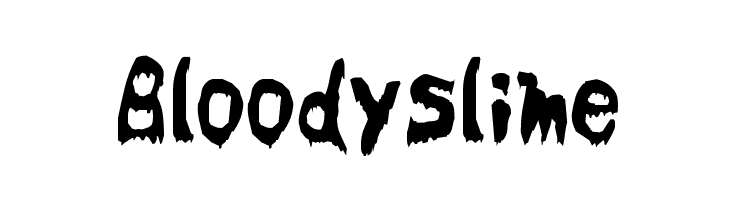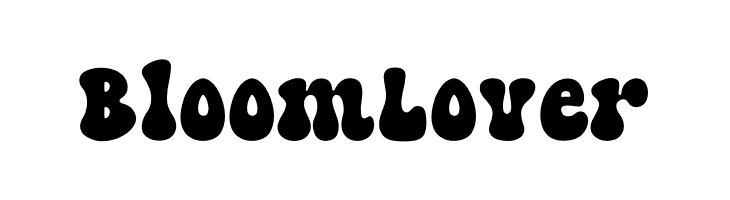
A bold, dynamic script font with fluid, energetic strokes and a hand-drawn appearance.
A bold, playful font with a hand-drawn, whimsical style.
A thorny, decorative font with sharp, barbed wire-like extensions.
A bold, dripping font with a horror or icy theme.
A bold, dripping font with a horror-themed aesthetic.
A bold, dripping font with a spooky, horror-themed design.
A distressed, grungy script font with an energetic, handwritten style.
A bold, fragmented font with a shattered, edgy appearance.
A bold, dripping font perfect for horror themes.